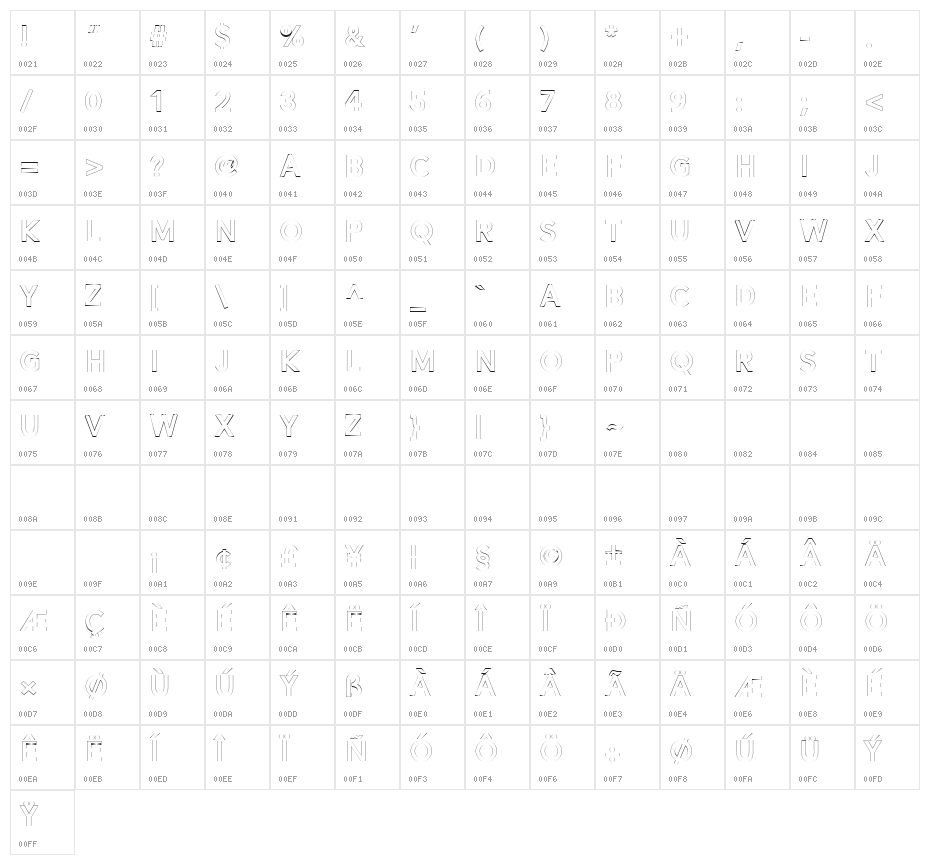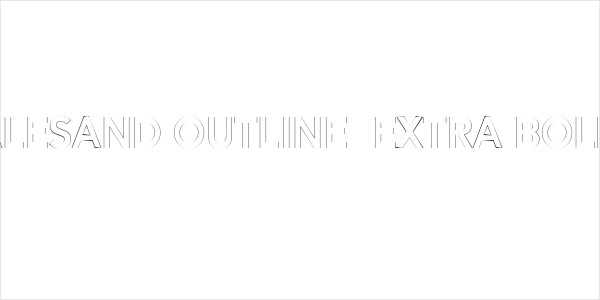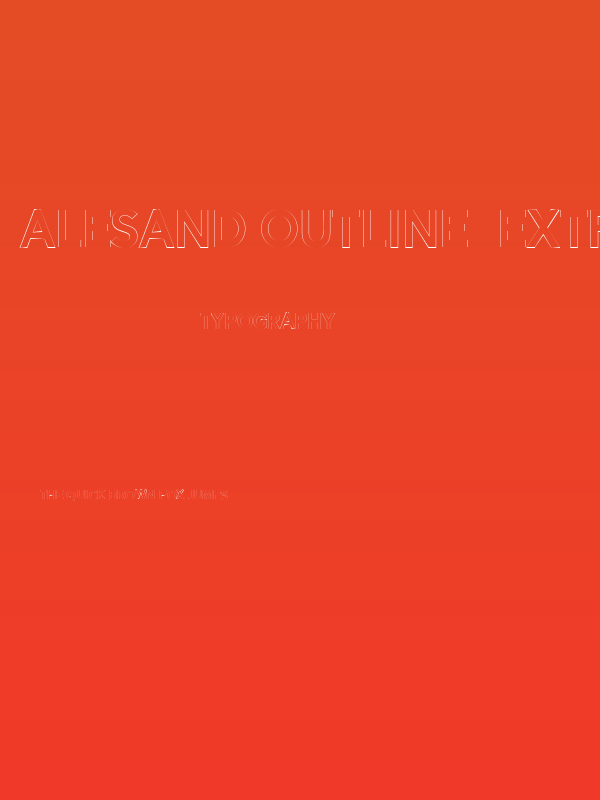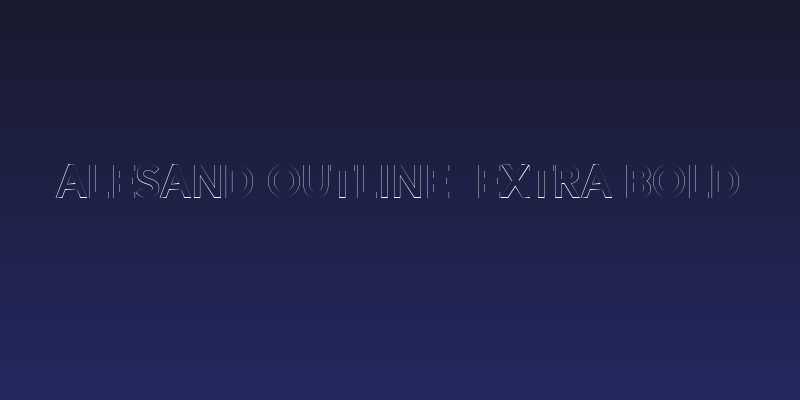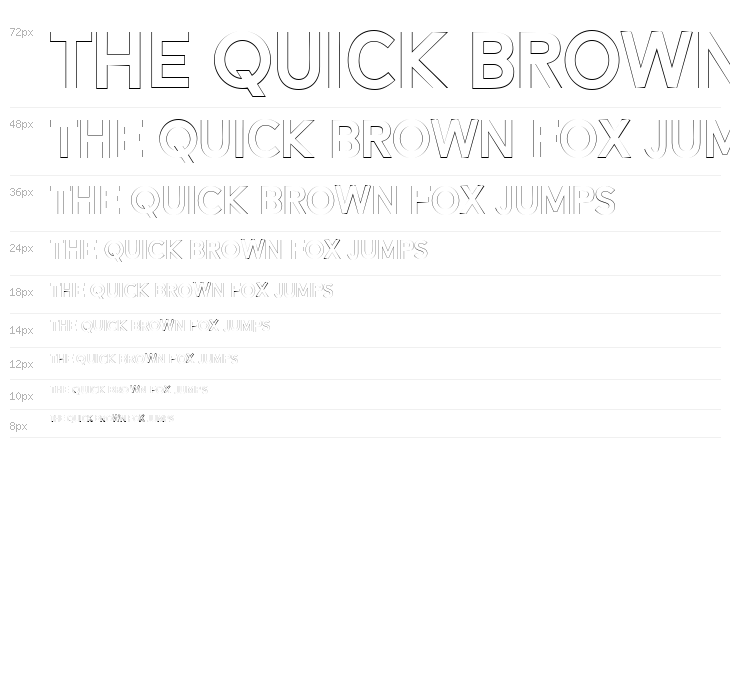
Alesand Outline Extra Bold Font
Alesand Outline Extra Bold Description
This font features a bold, outline style that emphasizes its geometric and modern design. Each character is crafted with precision, showcasing clean lines and a uniform thickness that creates a striking visual impact. The uppercase and lowercase letters maintain a consistent height and width, contributing to a balanced and cohesive appearance. The numerals and special characters are designed to match the overall aesthetic, ensuring versatility across various applications. The font's outline nature allows for creative layering and color usage, making it ideal for eye-catching designs.
| Proposed Projects | Ideal for branding, posters, headlines, and any design requiring a modern and bold statement. |